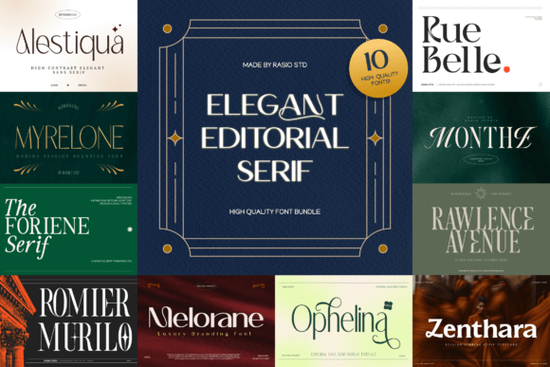
If you've been searching for a typeface that feels both modern and timeless, the Elegant Editorial Font bundle on Creative Fabrica is worth a close look. It's a curated collection of serif typefaces designed specifically for refined, polished work think magazine layouts, luxury branding, and editorial compositions. For designers who want type that looks expensive without being overdone, this bundle hits a sweet spot.
What makes this serif font bundle different from other serif fonts?
There's no shortage of serif fonts online. But many fall into two camps: either they're too plain and forgettable, or they're overly ornamental and hard to read at smaller sizes. The Elegant Editorial serif font collection sits right in the middle. Each typeface has elegant proportions, subtle thick-thin contrast, and small distinctive details that give it personality without sacrificing readability.
These fonts were clearly made with editorial use in mind. The letterforms feel balanced and confident the kind of type that works well at large display sizes on a magazine cover but still holds up in body text. That versatility is what makes this bundle practical for real-world projects, not just mood boards.
If your work needs to look polished and intentional, serif fonts like these give you a strong typographic foundation to build on.
What types of projects work best with editorial serif fonts?
Editorial serifs are a specific style. They're not as casual as a slab serif and not as rigid as a traditional book serif. Here are some project types where this kind of font really shines:
- Magazine and blog layouts headlines, pull quotes, and section headers
- Luxury brand logos and packaging cosmetics, jewelry, skincare, fashion
- Social media graphics especially Instagram posts, stories, and Pinterest pins
- Website hero sections large display text that needs to feel sophisticated
- Book covers and chapter openers fiction, lifestyle, or photography books
- Print-on-demand products minimalist quote prints, tote bags, and apparel designs
The key is matching the tone of the font to the tone of your project. These fonts communicate quiet confidence they don't shout, but they do make a strong impression.
How does it compare to other popular serif fonts?
If you've used fonts like Gavielle, you already know how much a well-designed serif can change the feel of a layout. The Elegant Editorial bundle takes a similar approach refined, editorial, and clean but offers multiple typefaces in one collection, so you get more variety for different projects.
Compared to widely used free serifs like Playfair Display or Cormorant Garamond, this bundle brings a more curated, polished feel. The letter spacing, weight distribution, and overall rhythm of the typefaces are crafted with editorial print and luxury branding specifically in mind.
Are the fonts easy to use for beginners?
Yes. Like most fonts on Creative Fabrica, these install the same way as any other font on your computer. Once installed, they show up in your design software whether that's Canva, Adobe Illustrator, Photoshop, Affinity Designer, or even Cricut Design Space.
A few things to keep in mind:
- Pair these editorial serifs with a simple sans-serif for body text to keep layouts clean
- Use them at larger sizes for headlines to show off their details
- Stick to one or two weights per design to avoid visual clutter
Quick checklist before you buy
Before purchasing, here's a short list to make sure this bundle fits your needs:
- Identify your project type editorial, branding, POD, or digital products
- Check the license make sure it covers how you plan to use the fonts
- Test the pairing download a preview or test character to see how it looks with your existing design elements